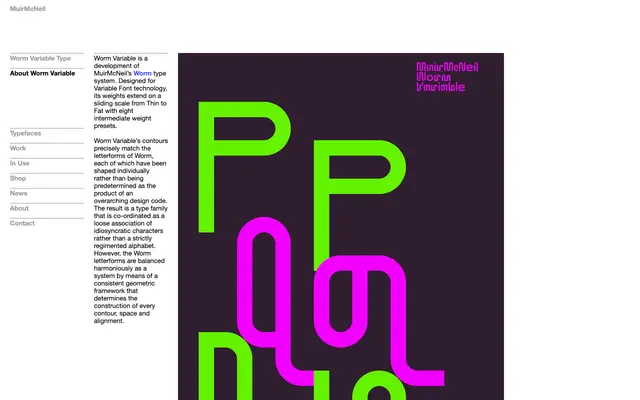
Worm Variable
A variable font development of MuirMcNeil's Worm type system, spanning Thin to Fat across a continuous weight axis with eight intermediate presets and a layerable architecture.
Each letterform is shaped individually rather than derived from a generalised design code, producing an alphabet that feels like a loose coalition of idiosyncratic characters held together by a shared geometric framework governing every contour, space and alignment. All instances are calibrated to layer precisely over one another, opening a range of visual combinations for print, interactive media and motion graphics. The variable axis runs continuously from Thin to Fat, with eight named weight presets as stopping points.
Worm Variable is a display typeface built on a consistent geometric framework, with individually shaped idiosyncratic letterforms rather than a systematically derived design, placing it firmly in the geometric display category.